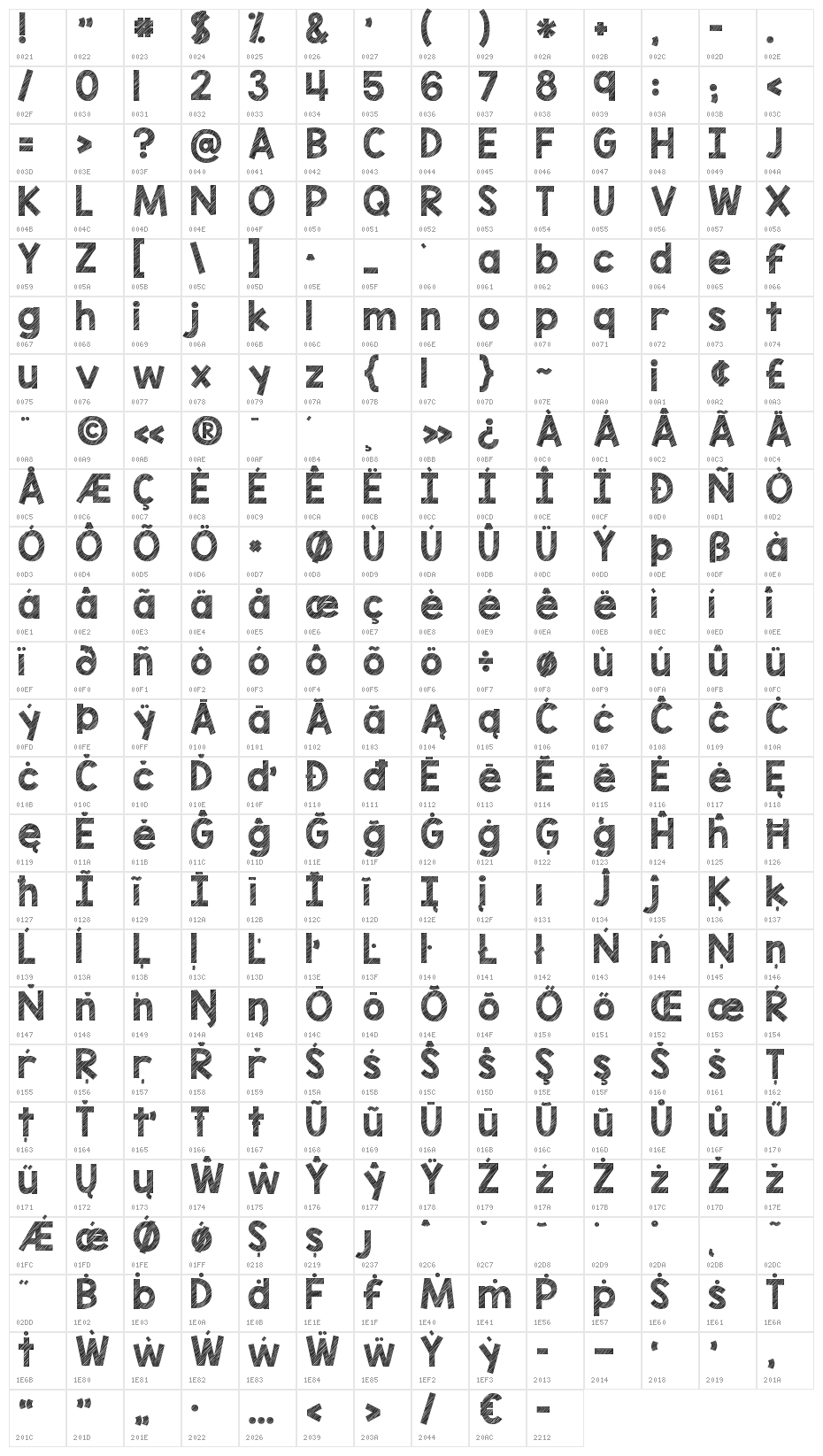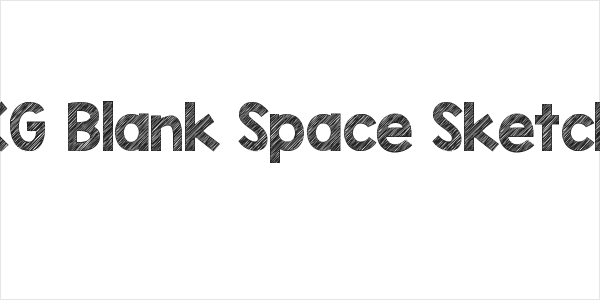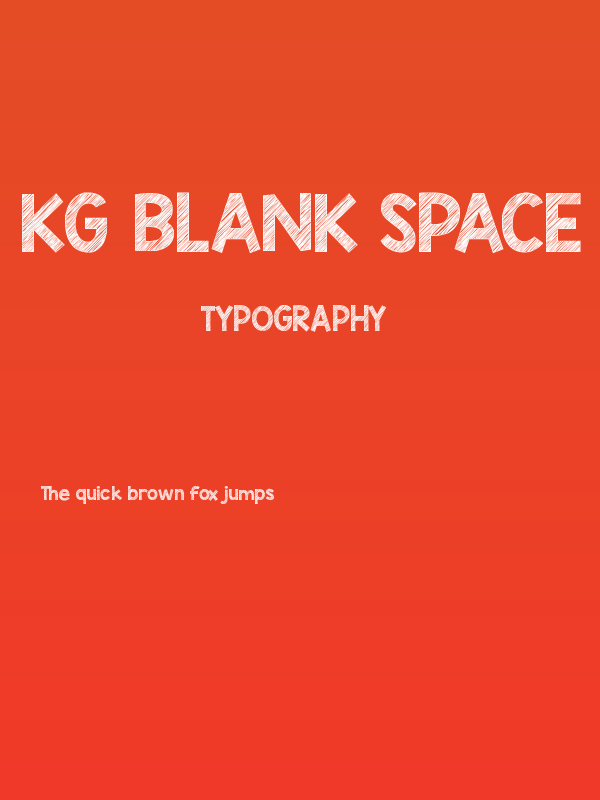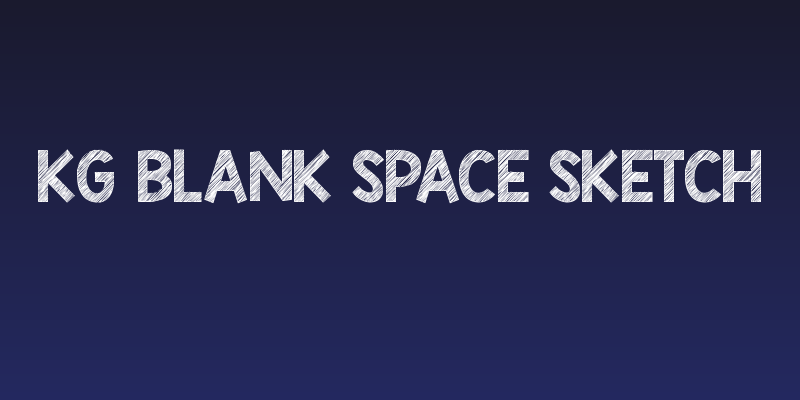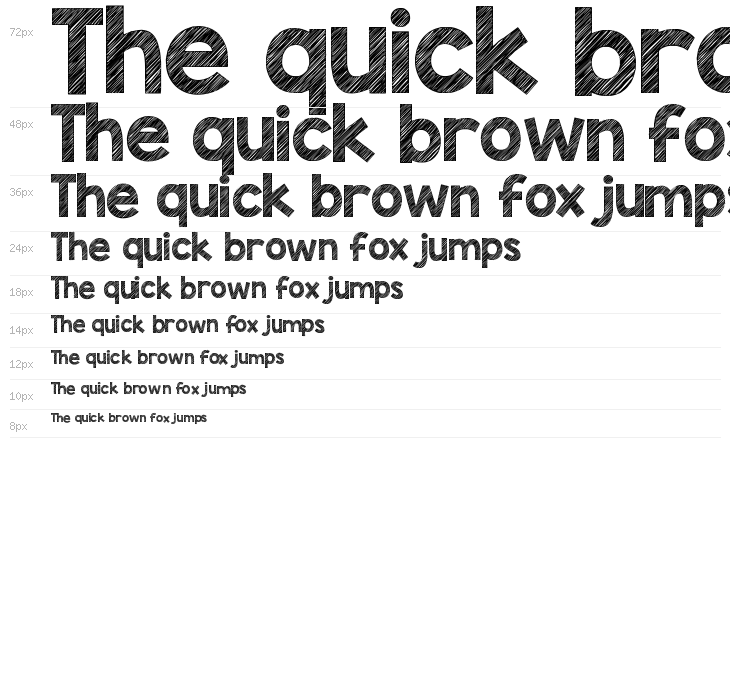
KG Blank Space Sketch Font
KG Blank Space Sketch Description
This font features a bold, playful design with a sketch-like texture that adds a hand-drawn feel. The characters are uniformly thick, with rounded edges that soften the overall appearance. The uppercase and lowercase letters maintain a consistent style, while the numbers and special characters are equally bold and expressive. The sketch lines within each character create a sense of movement and creativity, making it ideal for projects that require a fun and informal touch. The font's unique texture and boldness make it stand out, suitable for eye-catching designs.
| Overall Style | Playful, Creative |
| Proposed Projects | Ideal for children's book covers, playful branding, creative posters, and informal invitations. |